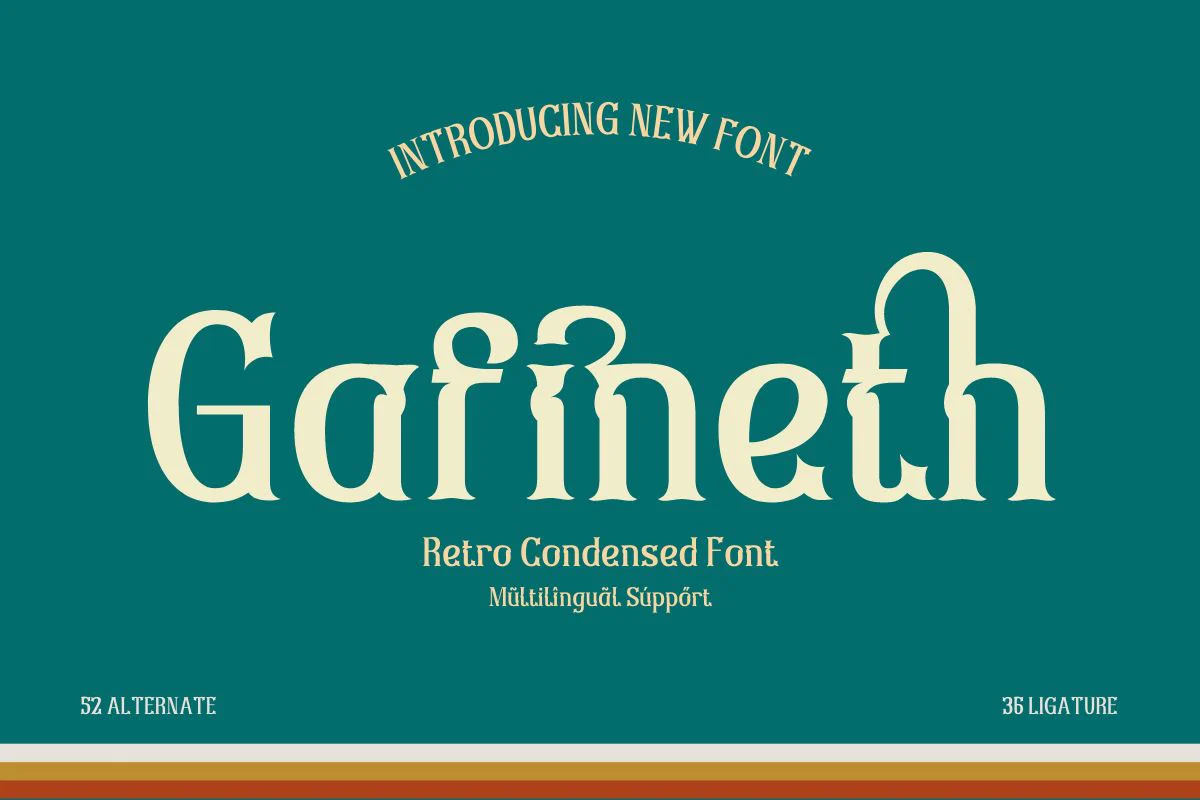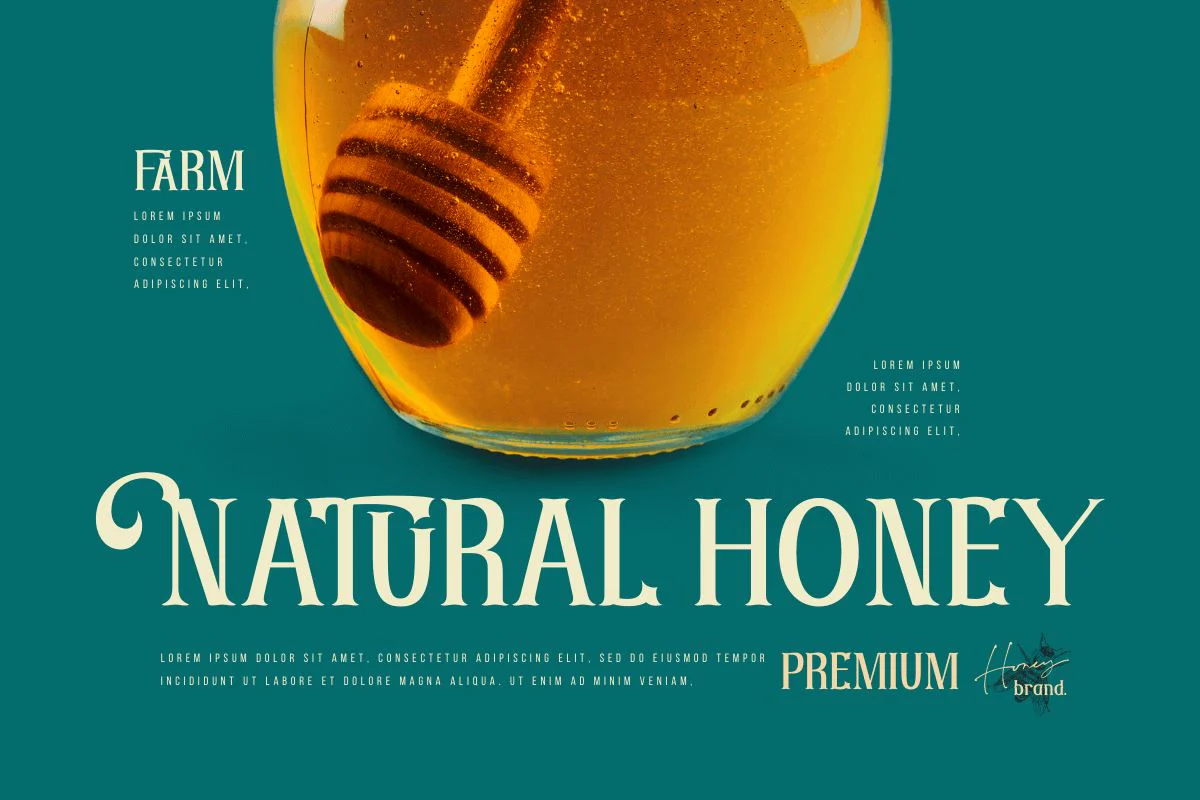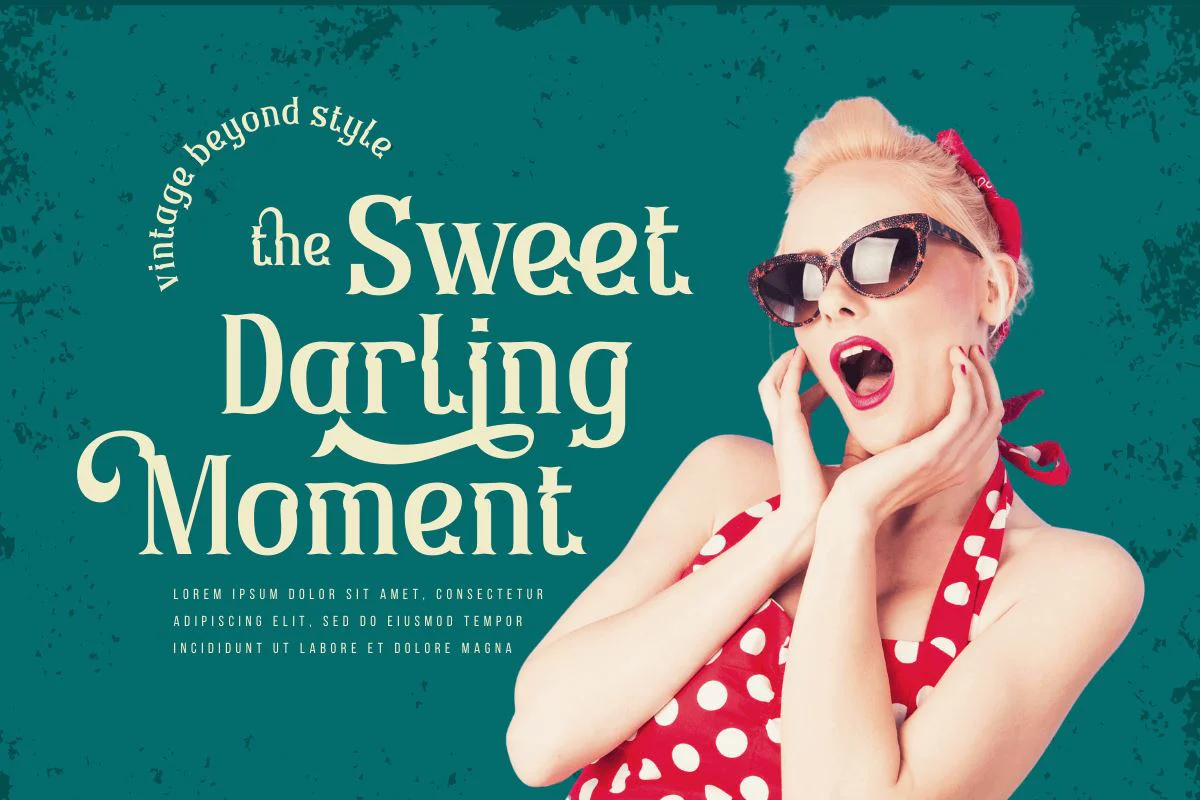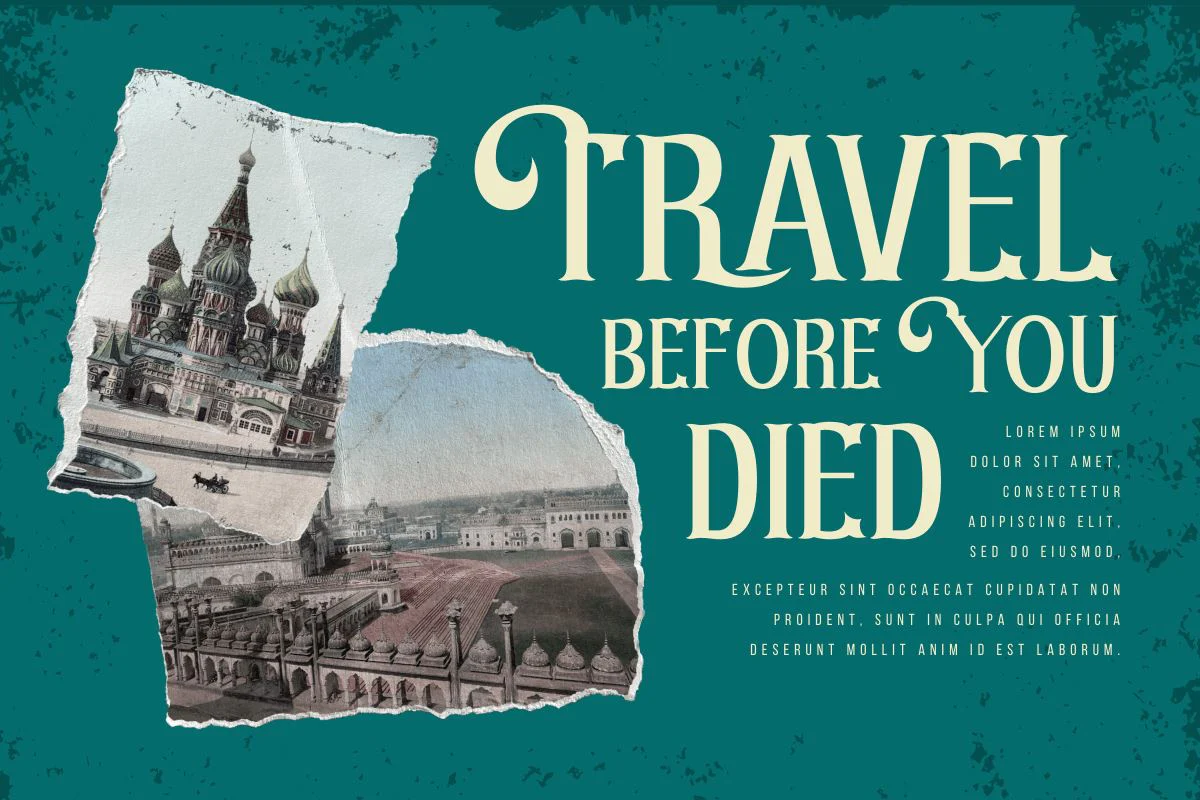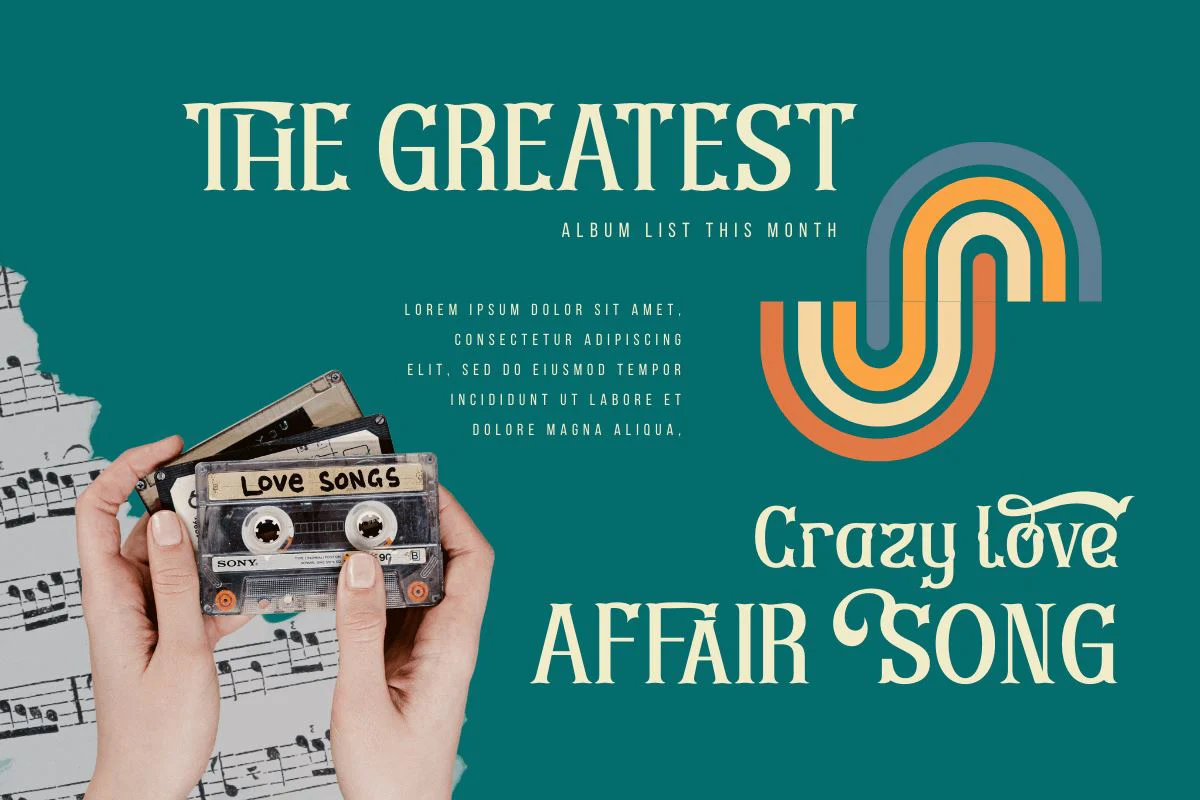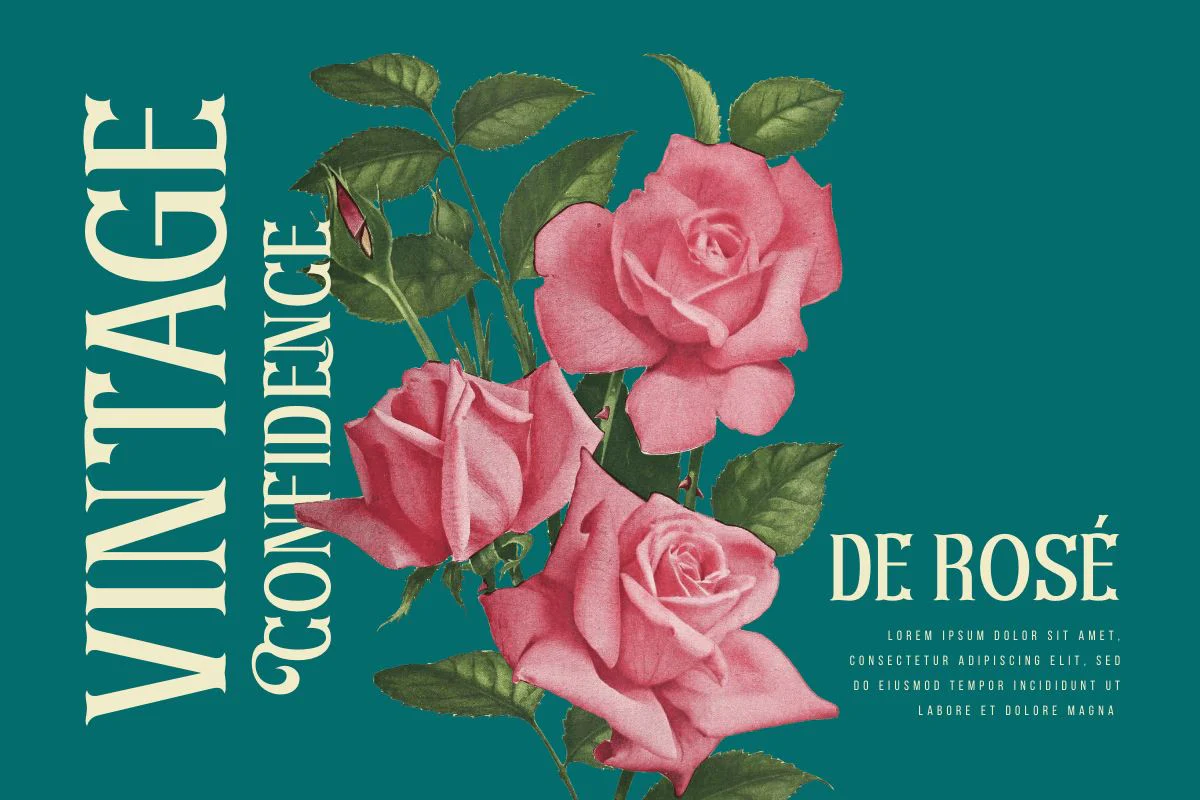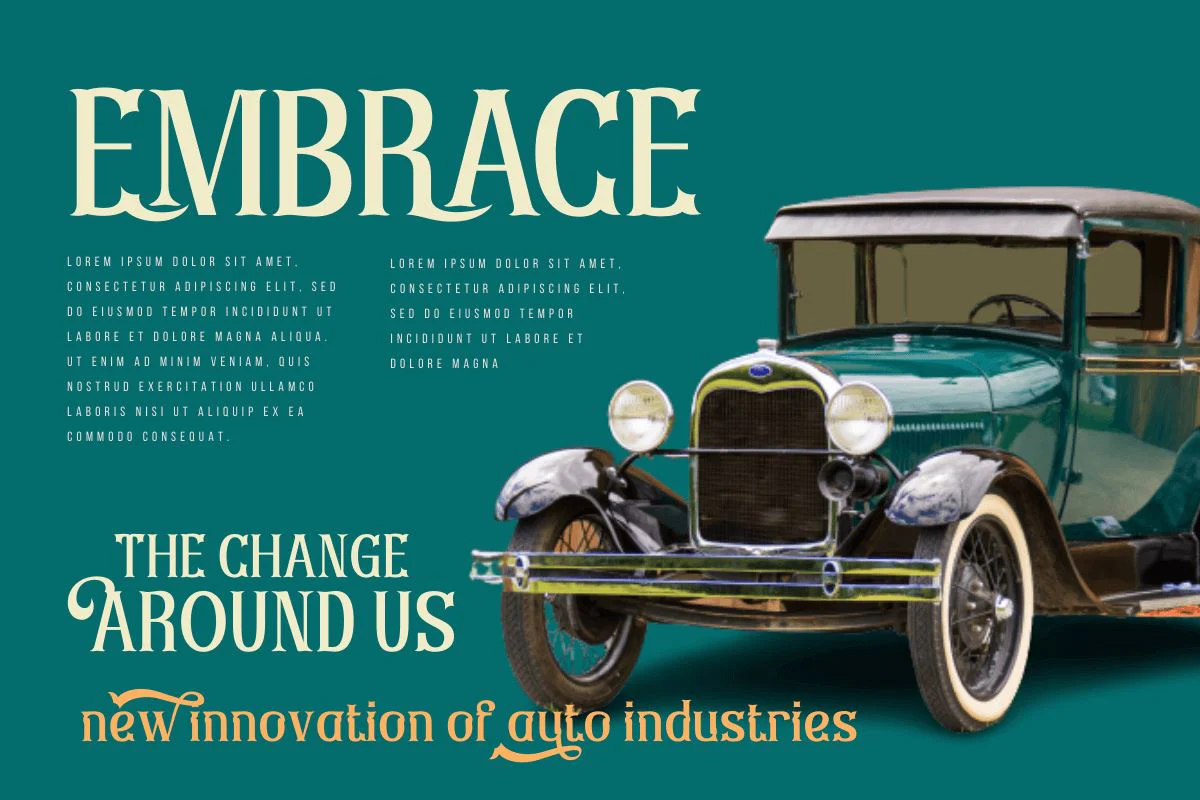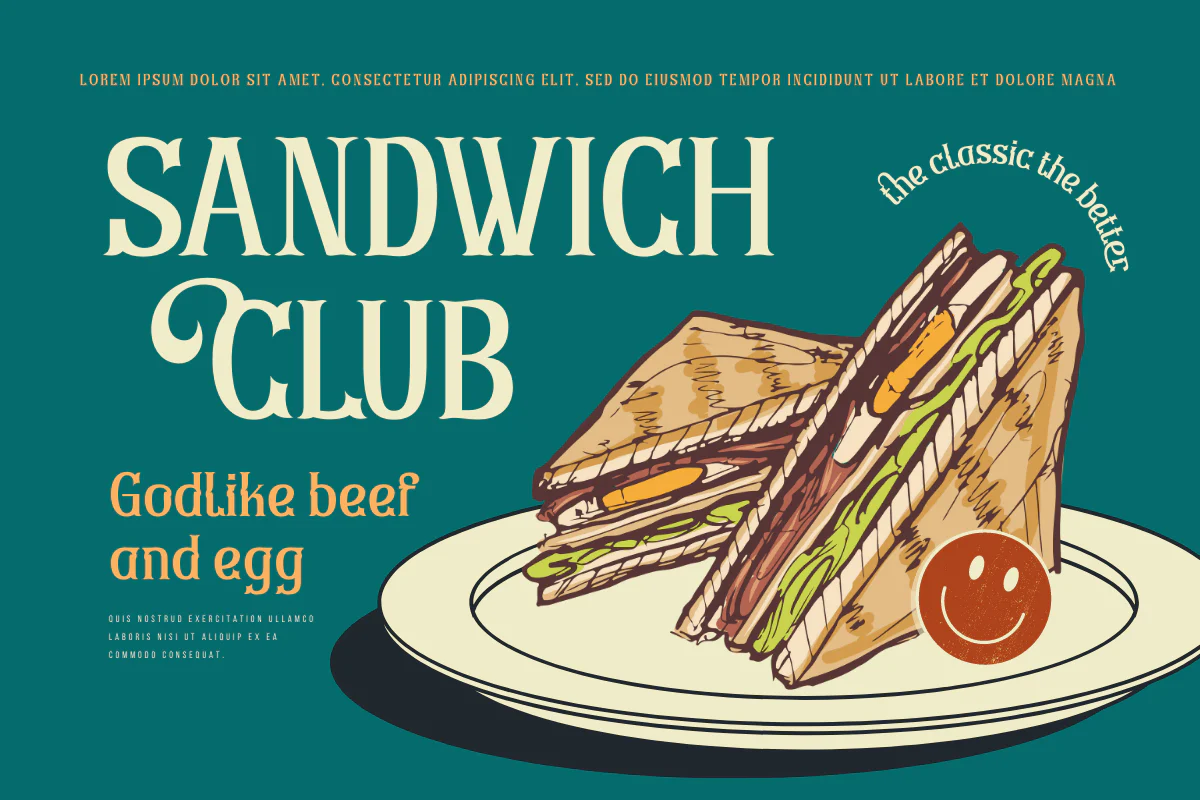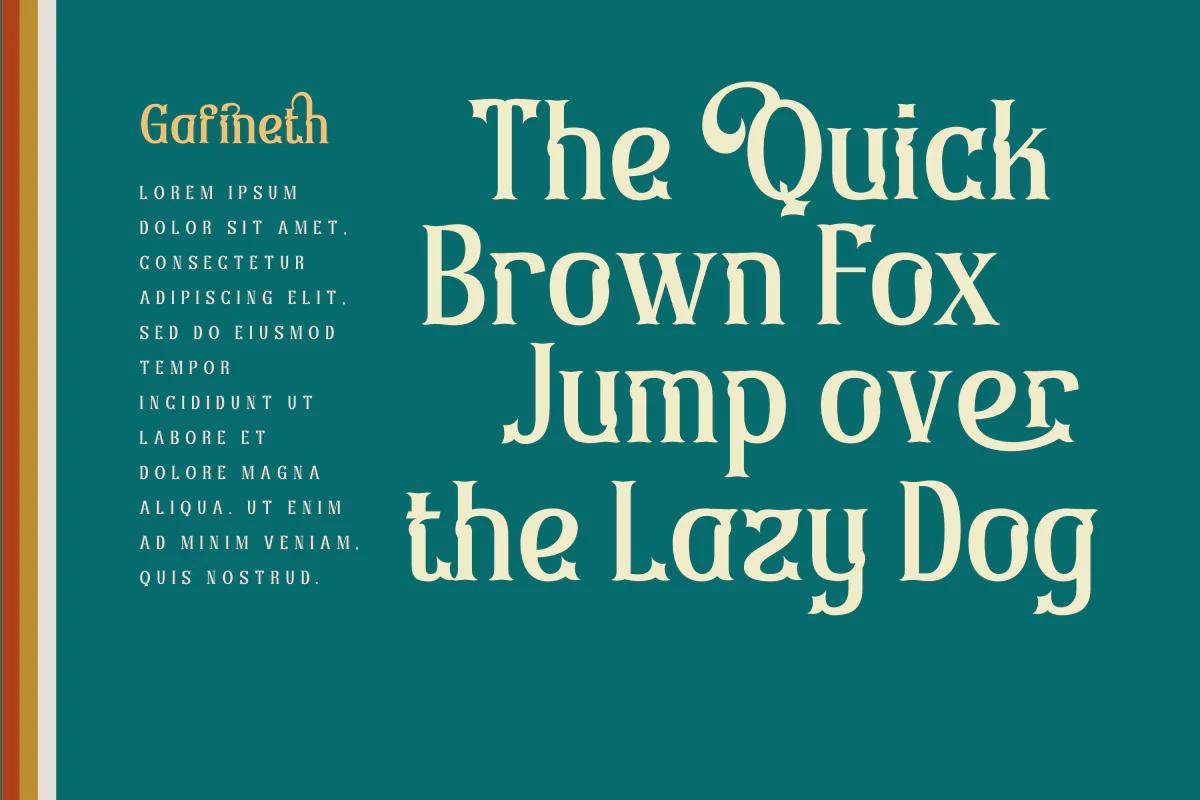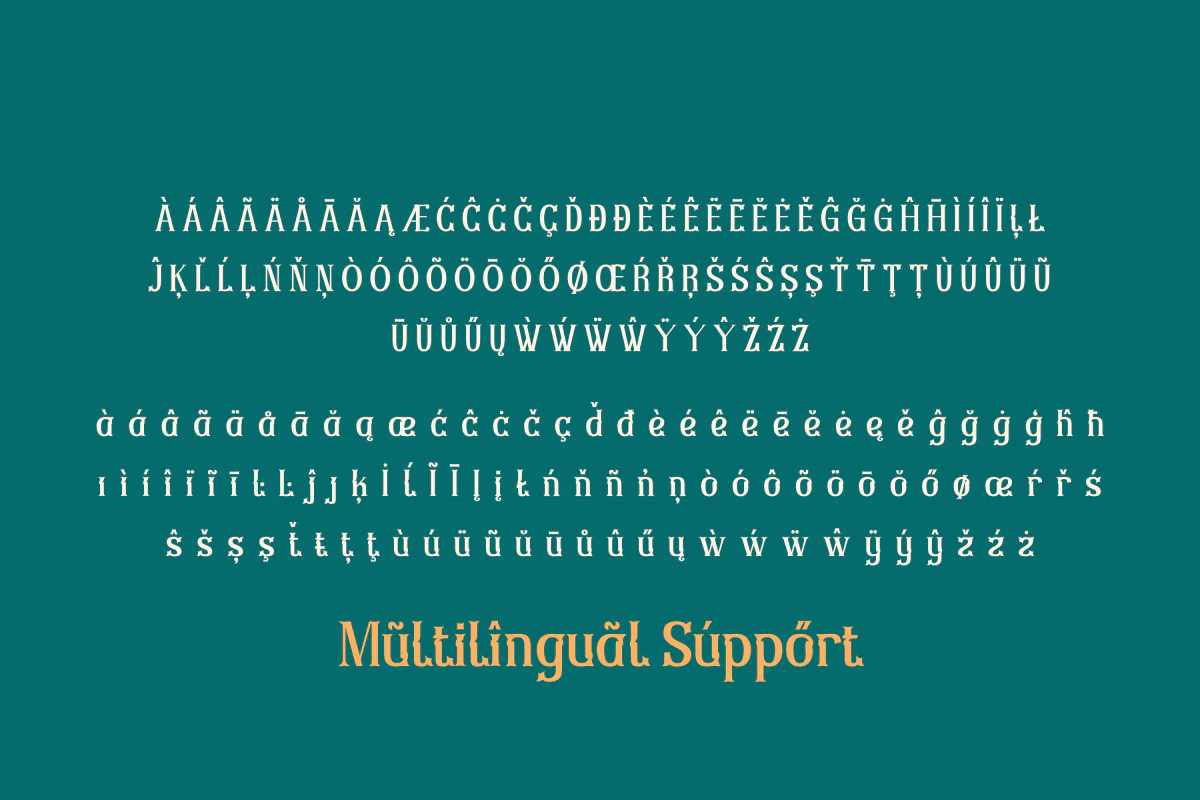
Gafineth – Serif Classic Modernism Font
Introducing Gafineth, a Serif Classic Modernism Font with a retro classic touch. Elevate your designs with this sophisticated and elegant font that seamlessly blends the best of both classic and modern typography. With 52 alternate characters and 36 ligatures, Gafineth offers endless possibilities for creative expression and customization. Whether you’re designing for print or digital media, this font is a versatile choice for a wide range of projects.
Gafineth also supports multilingual characters, making it an ideal choice for global brands and businesses. With its timeless and refined aesthetic, Gafineth is perfect for logos, branding, editorial design, packaging, and more. Try Gafineth today and add a touch of classic modernism to your next design project.
Introducing Gafineth, a Serif Classic Modernism Font with a retro classic touch. Elevate your designs with this sophisticated and elegant font that seamlessly blends the best of both classic and modern typography. With 52 alternate characters and 36 ligatures, Gafineth offers endless possibilities for creative expression and customization. Whether you’re designing for print or digital media, this font is a versatile choice for a wide range of projects.
Gafineth also supports multilingual characters, making it an ideal choice for global brands and businesses. With its timeless and refined aesthetic, Gafineth is perfect for logos, branding, editorial design, packaging, and more. Try Gafineth today and add a touch of classic modernism to your next design project.